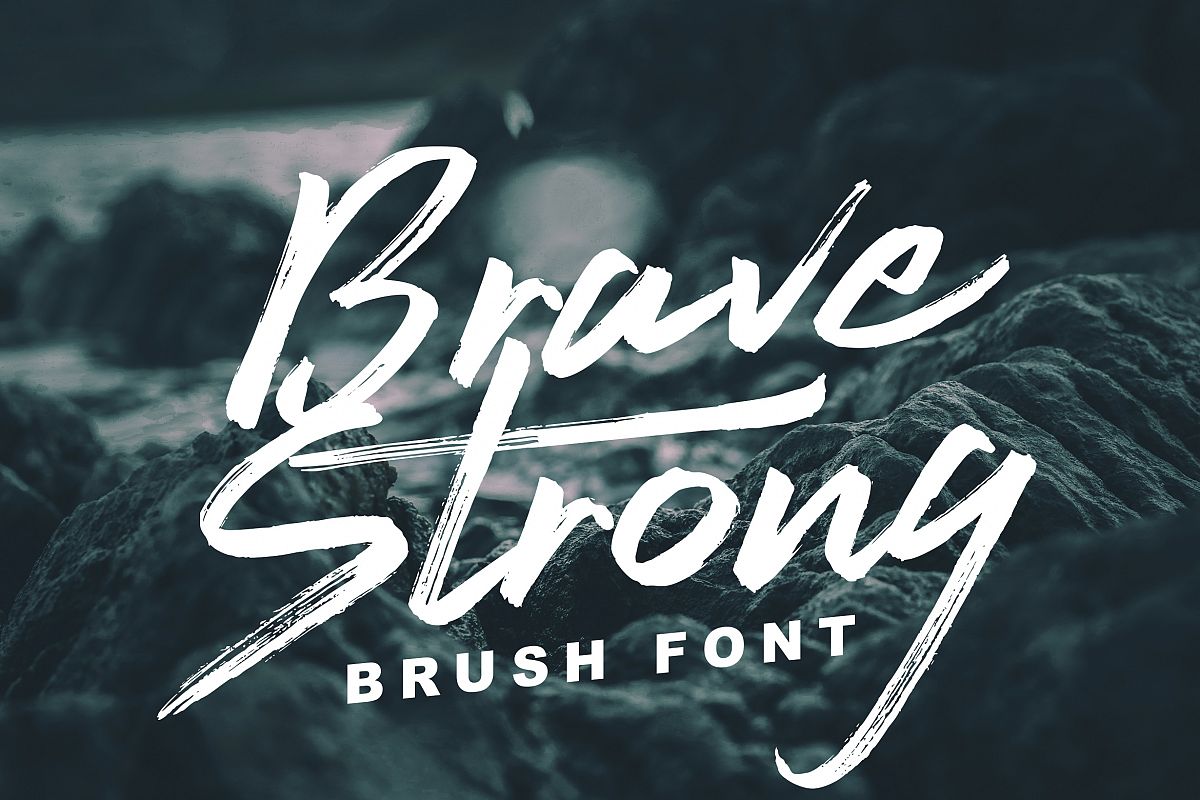
Brave Strong Font
Brave Strong is our newest font that made manually using brush pen and paper. This font is great for nowdays project like clothing, signature, watermark, photograpy, poster, branding. Redtowns also come with underline swashes than perfectly can be paired. Just do with your own creativity, this is easy use font, will make your project easier.